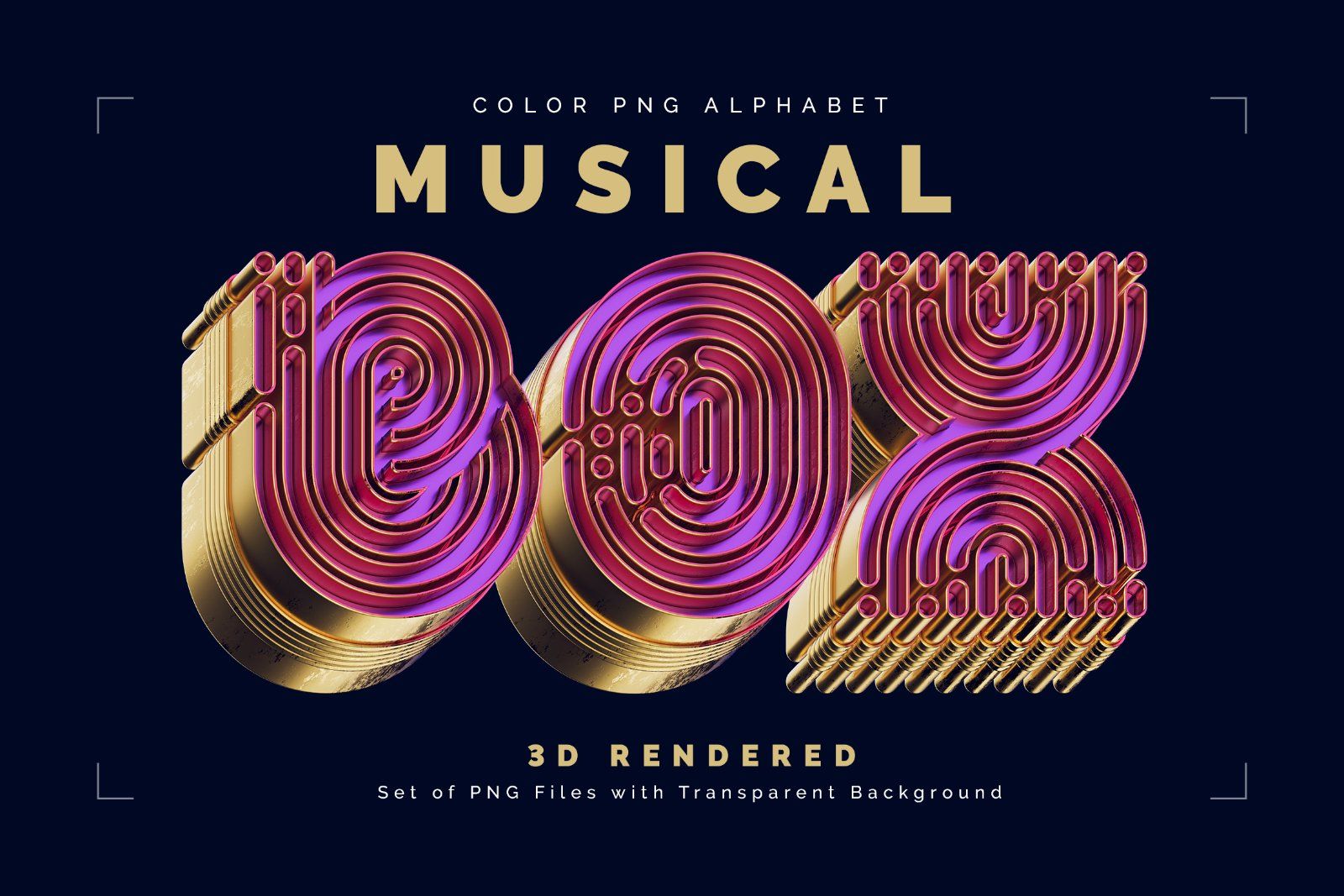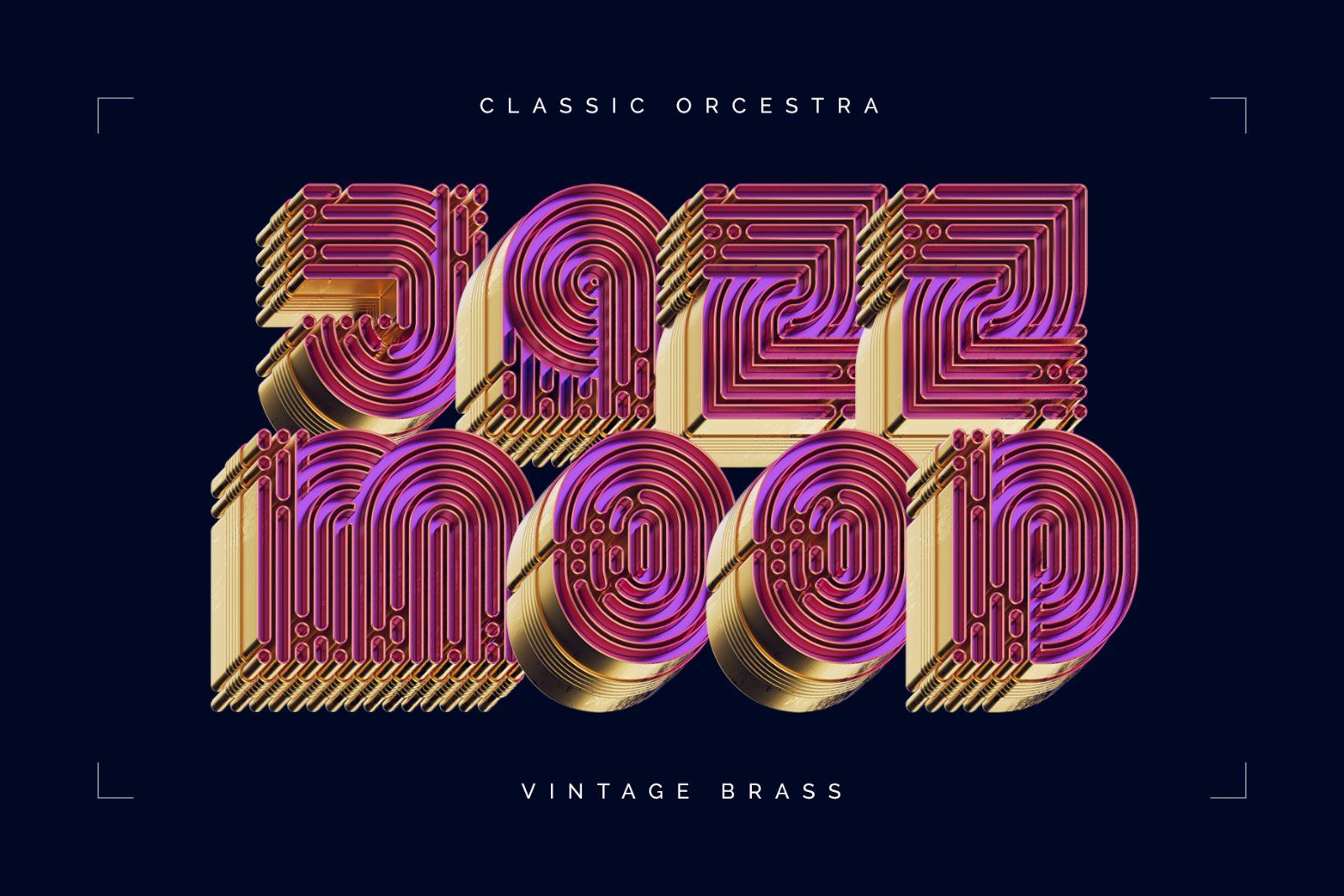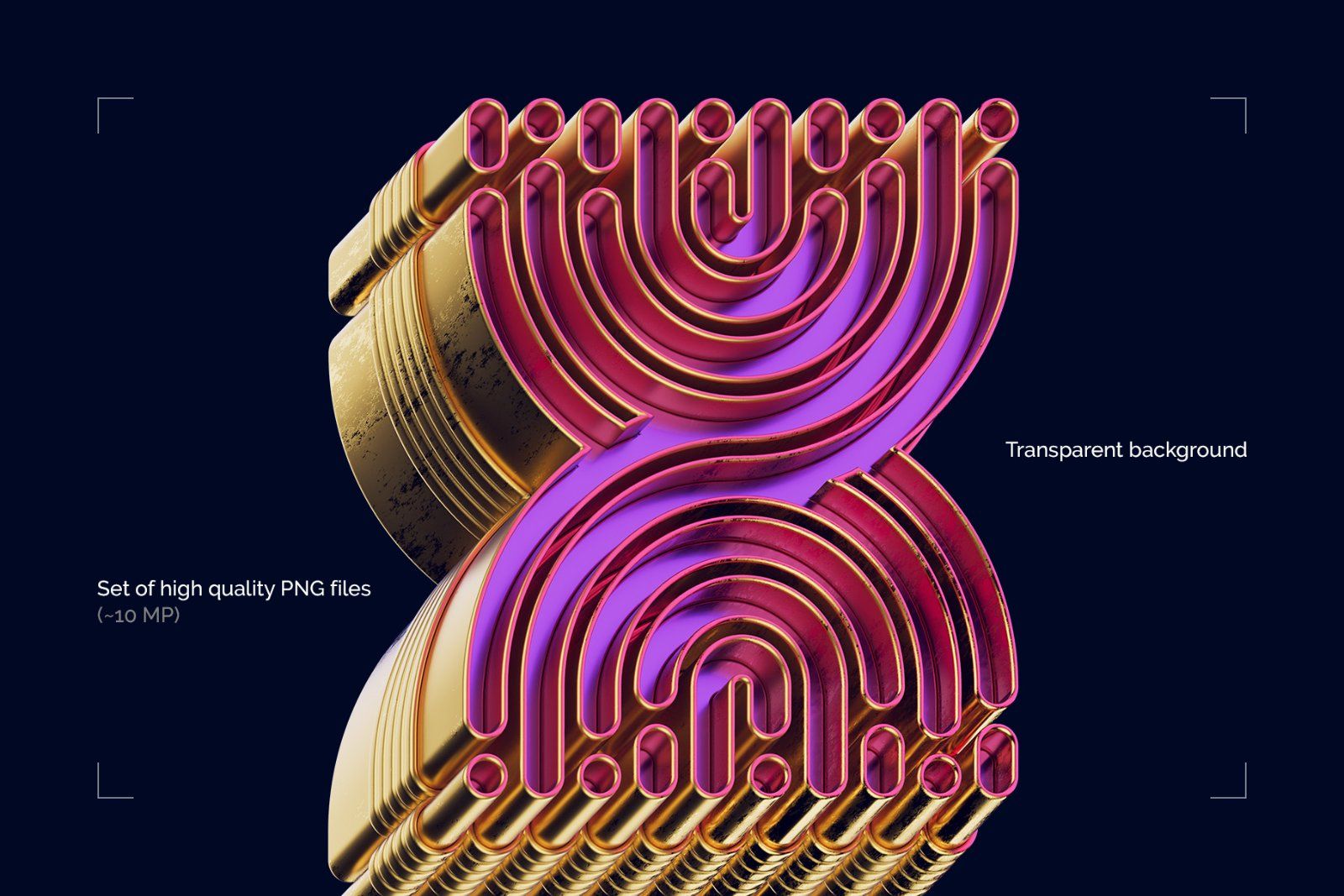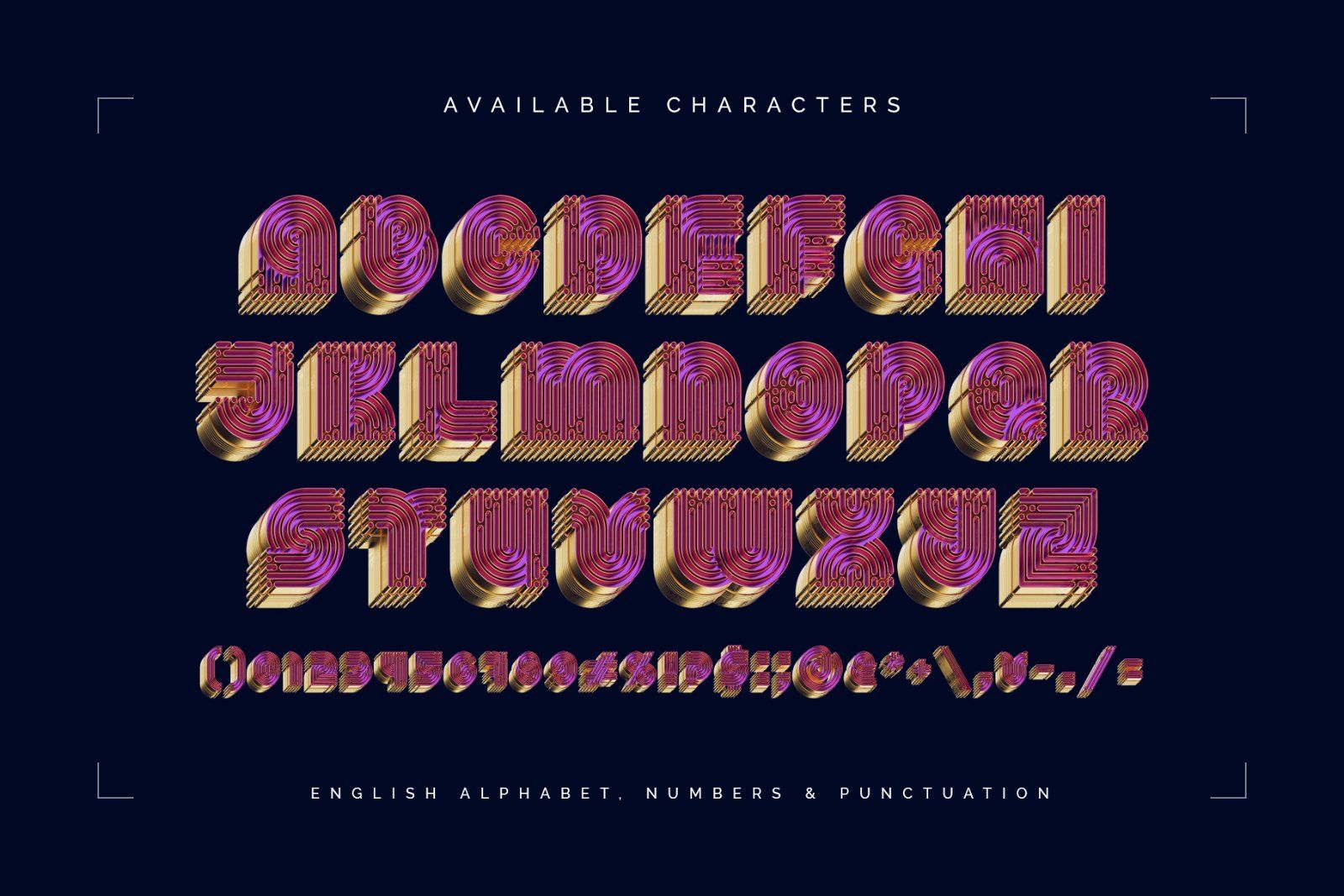
Hello! Presenting a vintage creative font set – Musical Box. It's a 3d rendered high quality typeface in style of vintage brass musical equipment. First of all it's a color bitmap OpenType-SVG font that can be used as a usual OTF font. Also a set of full resolution PNG files with transparent background is included (Average resolution is 10 megapixels). Consider that only English language and basic punctuation is supported, please check out the screenshot with all available characters.